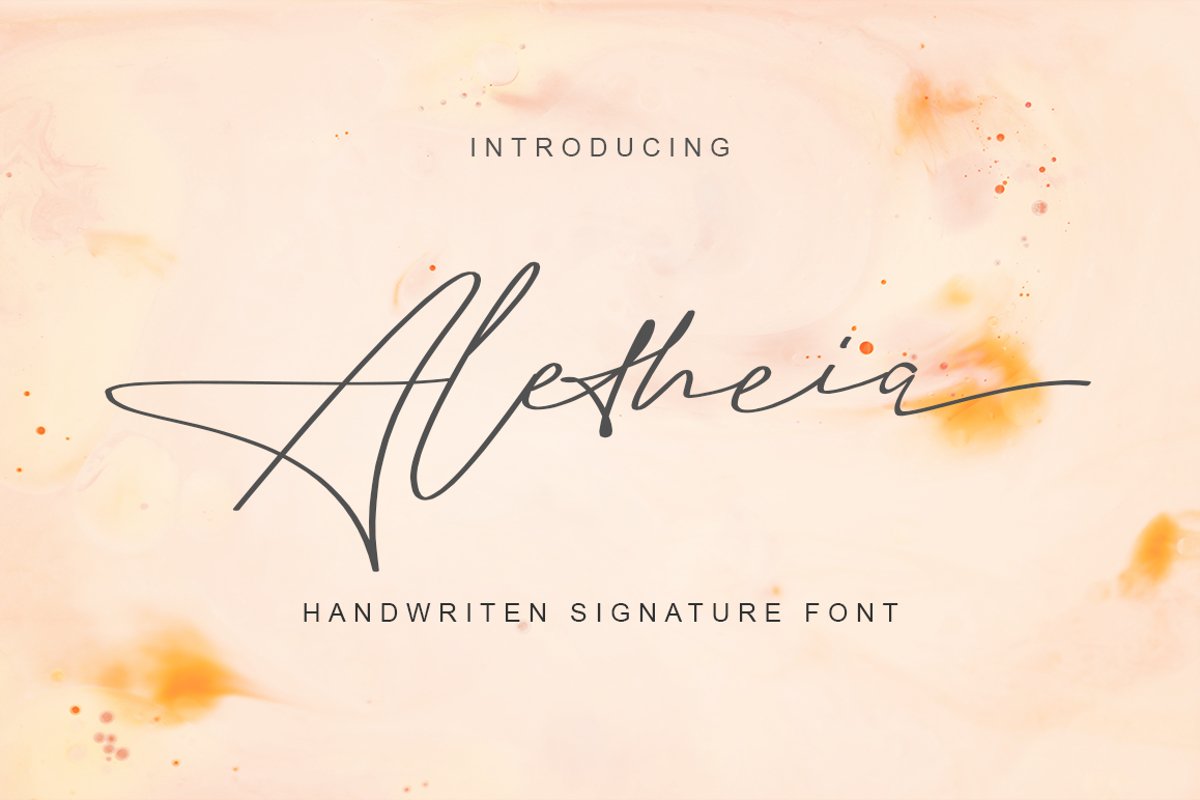
Aletheia | A Handwritten Signature Font
Aletheia
Aloha! Aletheia – is a handwritten signature font
Fonts include punctuations and multilingual support. Aletheia is perfect for branding, photography, invitations, quotes, watermarks, advertisements, product designs, labels, and much more!